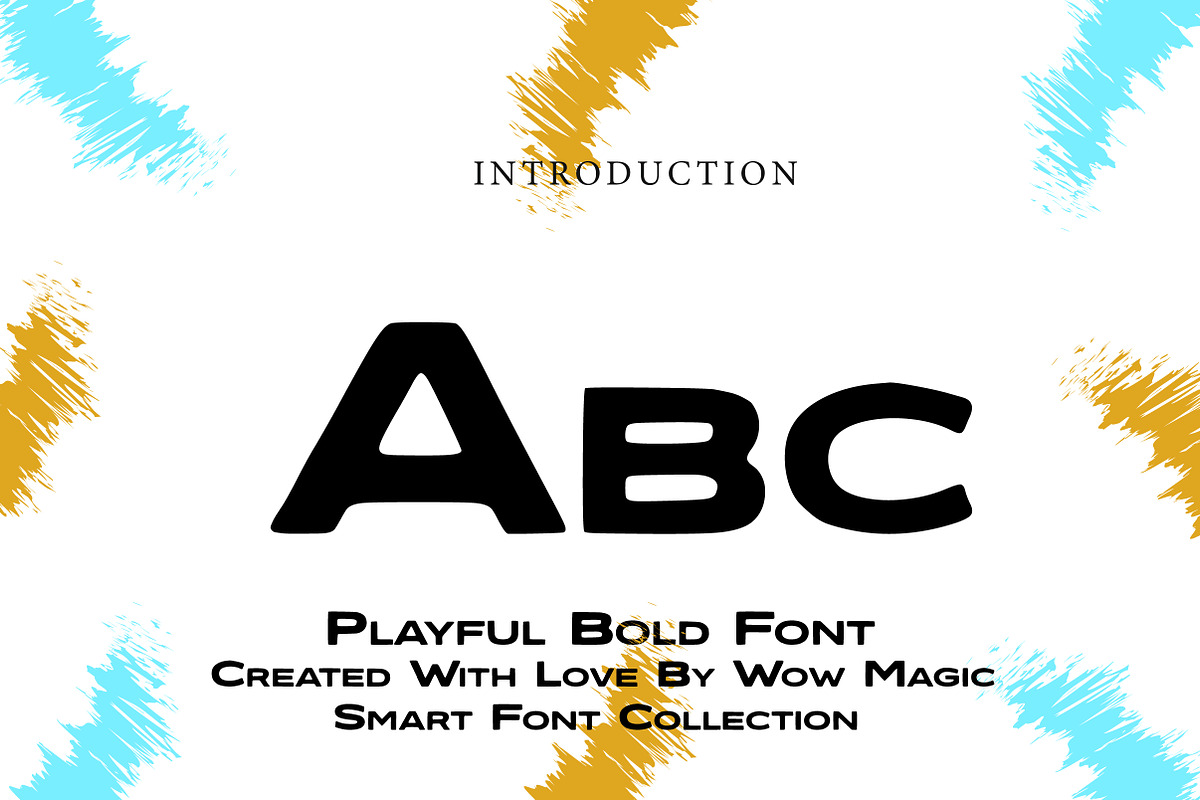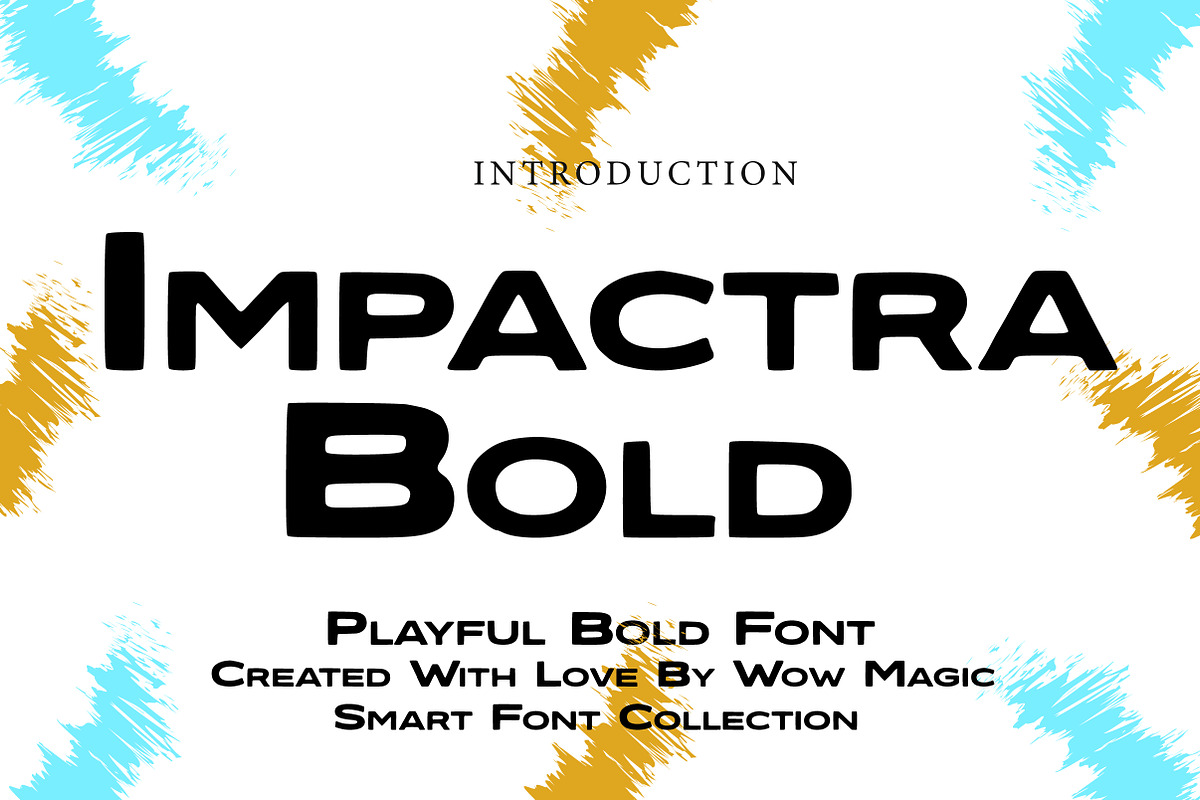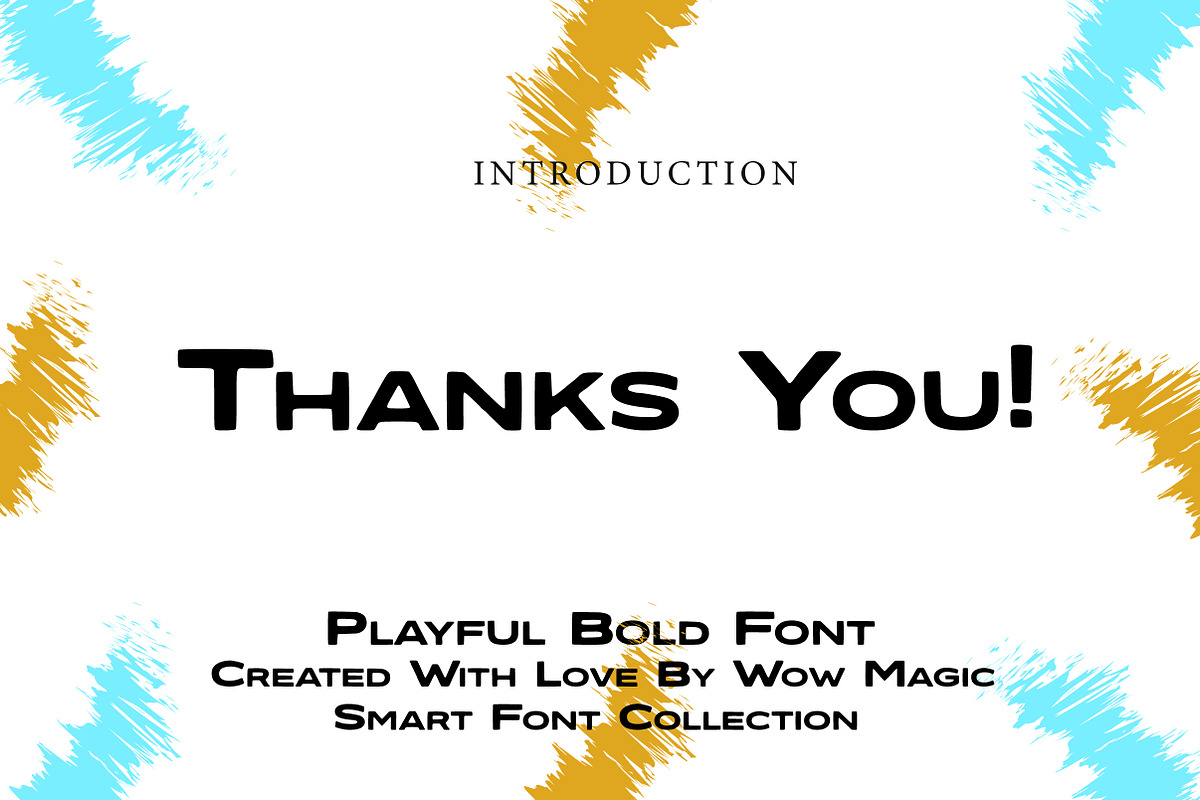
Impactra Bold
Impactra Bold is a modern bold sans-serif display font designed to create strong visual impact. With its thick strokes, geometric structure, and clean letterforms, this typeface delivers a powerful and confident typographic presence.
The font is perfect for headlines, logos, posters, branding, advertising, packaging, and digital graphics. Its bold and modern appearance makes it ideal for projects that need attention-grabbing typography and a contemporary style.
Whether you’re designing brand identities, marketing materials, social media graphics, or poster layouts, Impactra Bold provides a strong and professional typographic solution that stands out clearly in both print and digital designs.
Perfect For: • Logos & Branding • Headlines & Posters • Advertising Design • Packaging Design • Social Media Graphics • YouTube Thumbnails • Apparel Design • Modern Creative Projects